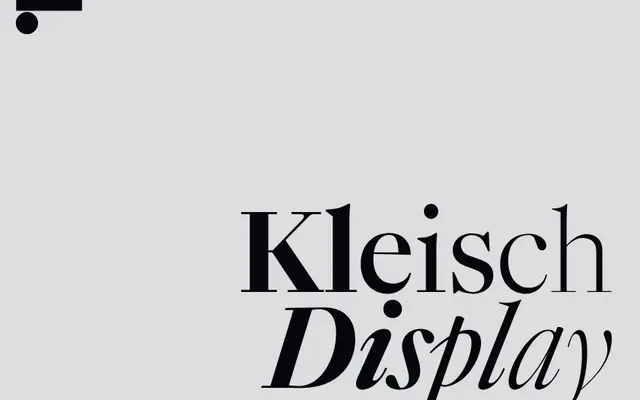
LL Kleisch Display
LL Kleisch Display specimen from Lineto
A Latin serif designed by Chiachi Chao to pair with CJK Ming typefaces, drawing on Baroque and Neoclassical models to align with shared formal features across scripts.
Designed from the observation that Latin serif and Ming typefaces converged in stroke models and ductus during their respective periods of rationalisation, Kleisch synthesises features from Van Dijk, Kis and Fleischman to produce a Latin that sits comfortably alongside a wide range of Ming designs. Three static optical families cover text, headline and display sizes, each with five weights and italics, and a fully variable version adds axes for weight and contrast for finer matching to specific CJK contexts. The typeface won a Swiss Design Award in 2023 before its 2024 release.
Kleisch is grounded in Baroque and Neoclassical Latin serif models, specifically Van Dijk, Kis and Fleischman, giving it the transitional serif character of those historical sources while being purpose-built for pairing with CJK Ming typefaces.